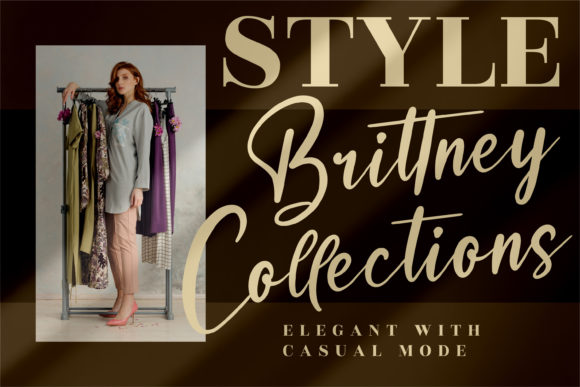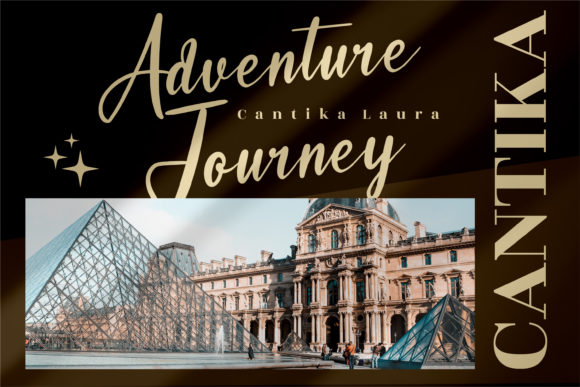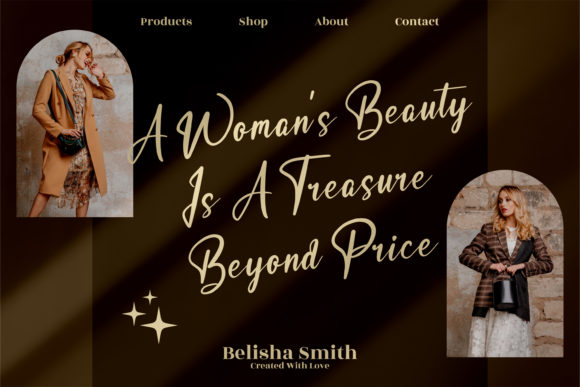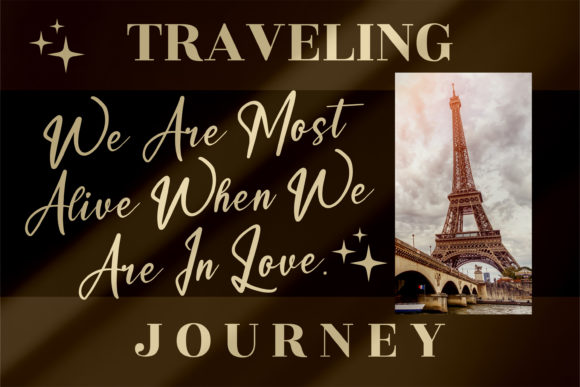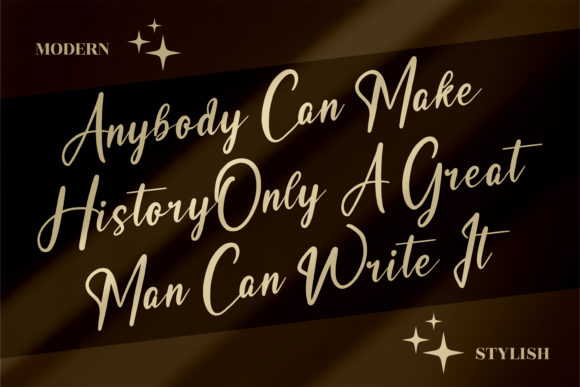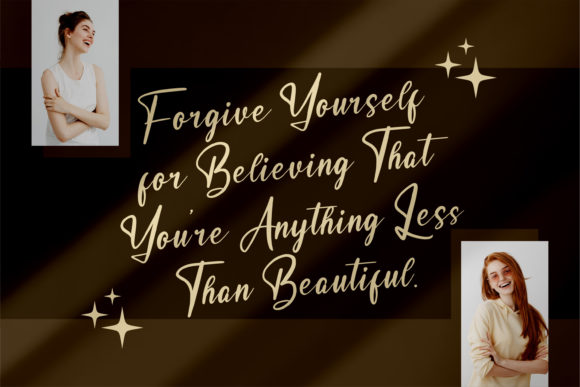
Bastian Richardo Font: Elevate Your Designs with Elegance and Sophistication
In the world of typography, a font can make or break a design project. For designers and crafters seeking to add a touch of luxury and sophistication to their creations, Bastian Richardo Font is an excellent choice. This sweet, relaxed, and flowing script font is designed to make your designs stand out with its unique charm and elegance.
What Makes Bastian Richardo Font Special?
Bastian Richardo Font boasts characters that dance along the baseline, creating a beautiful, fluid motion that adds a high-end feel to any design project. Whether you’re working on a branding project, packaging design, or social media graphics, this font is sure to impress. Its relaxed and flowing nature makes it perfect for designs that require a touch of elegance and sophistication.
One of the standout features of Bastian Richardo Font is its PUA (Private Use Area) encoding. This means that you can access all of the glyphs and swashes with ease, giving you greater flexibility and creative control over your designs. With PUA encoding, you can effortlessly navigate through the font’s extensive character set, including alternates, ligatures, and swashes, to create stunning designs that showcase your creativity.
Perfect for Luxury Designs
Bastian Richardo Font is specifically designed to add a luxury spark to your design projects. Its elegant and refined appearance makes it perfect for high-end branding, packaging, and advertising designs. Whether you’re creating a logo, brochure, or social media graphics, this font is sure to elevate your designs and leave a lasting impression on your audience.
Key Features of Bastian Richardo Font
- Sweet and Relaxed Design: Bastian Richardo Font features a unique, relaxed design that adds a touch of elegance to any design project.
- Flowing Script: The font’s flowing script style creates a beautiful, fluid motion that adds a high-end feel to your designs.
- PUA Encoded: With PUA encoding, you can access all of the glyphs and swashes with ease, giving you greater creative control over your designs.
- Luxury Spark: Bastian Richardo Font is designed to add a luxury spark to your design projects, making it perfect for high-end branding, packaging, and advertising designs.
Tips for Using Bastian Richardo Font
To get the most out of Bastian Richardo Font, here are a few tips to keep in mind:
- Use it for Headings and Titles: Bastian Richardo Font is perfect for headings and titles, where its elegant and refined appearance can make a lasting impression.
- Pair it with Other Fonts: Experiment with pairing Bastian Richardo Font with other fonts to create a unique and visually appealing design.
- Take Advantage of Swashes and Glyphs: With PUA encoding, you can access a wide range of swashes and glyphs to add extra flair to your designs.
Bastian Richardo Font is a stunning script font that is sure to elevate your design projects with its elegance and sophistication. With its unique, relaxed design and PUA encoding, this font offers a world of creative possibilities for designers and crafters. Whether you’re working on a luxury branding project or simply want to add a touch of elegance to your designs, Bastian Richardo Font is an excellent choice.